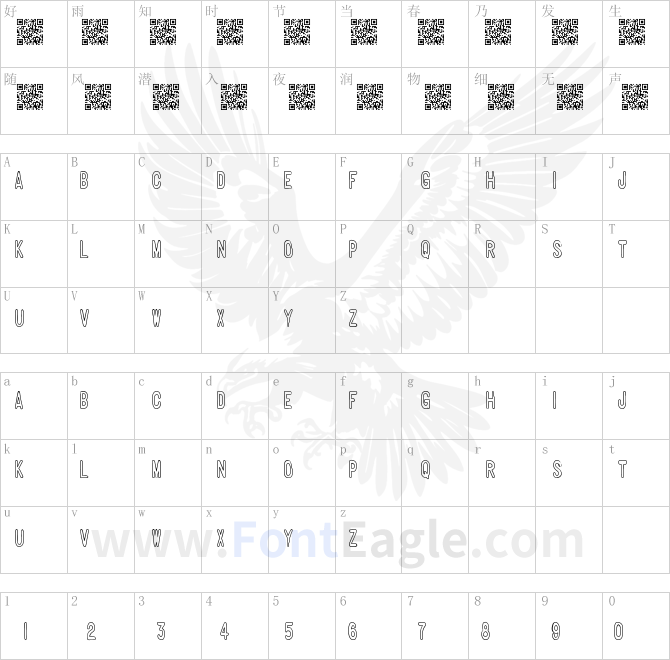
- Font name:MakingIdeas
- Font Subfamily ID:MakingIdeas:Version 1.00
- Font Full Name:MakingIdeas
- Font Version:Version 1.00 December 9, 2014, initial release
- Postscript:MakingIdeas